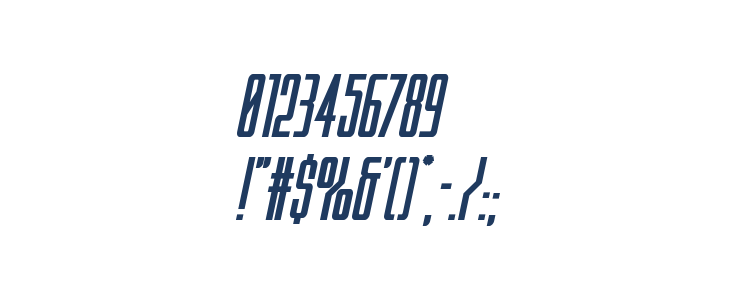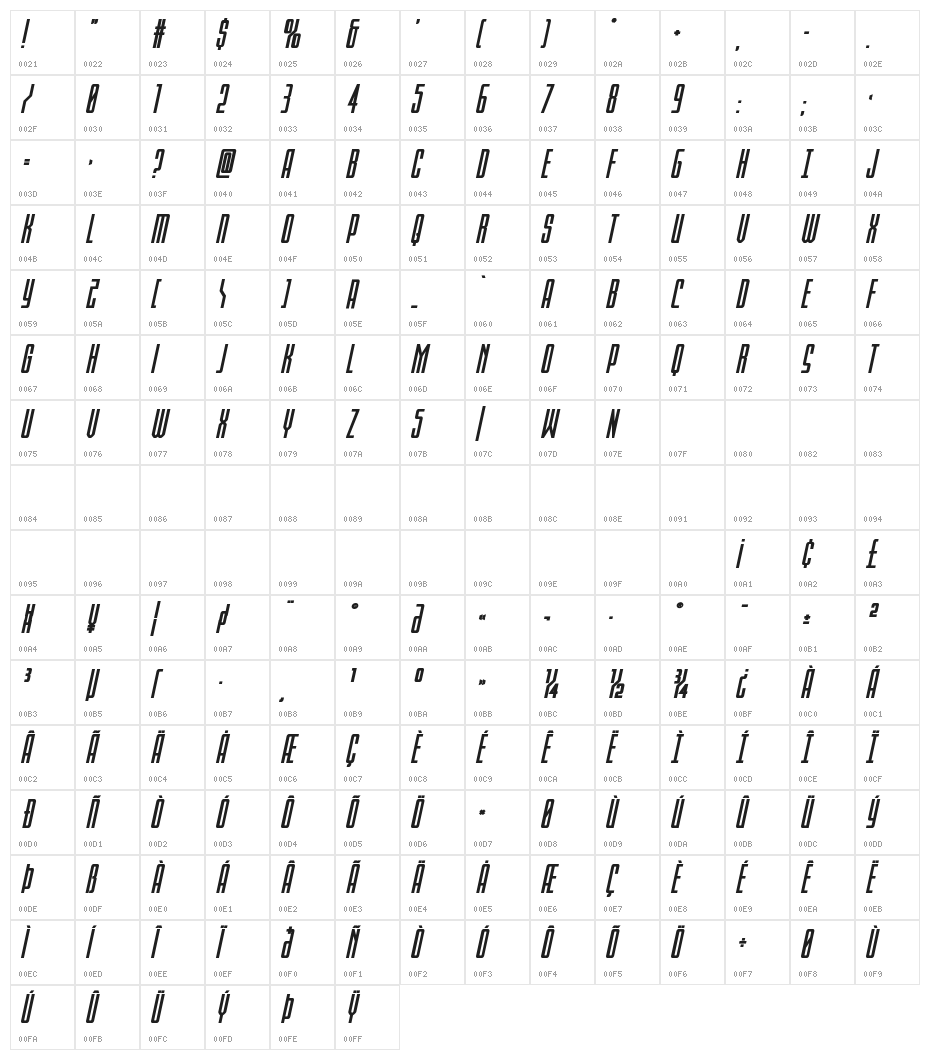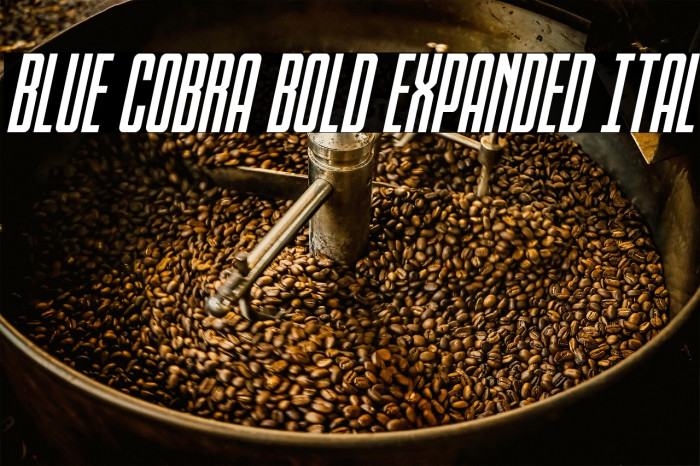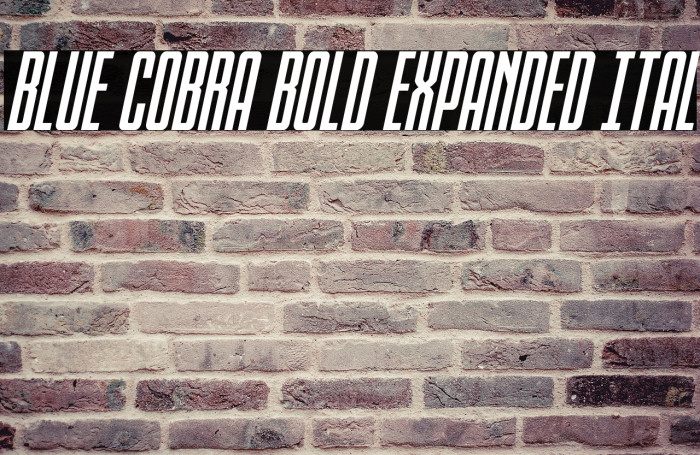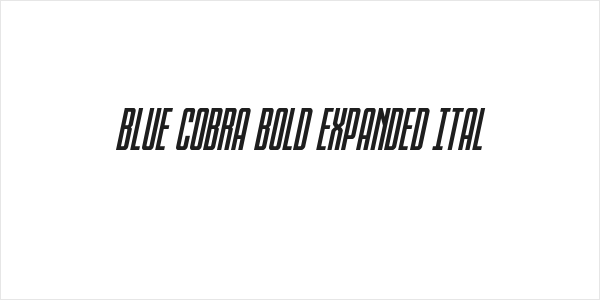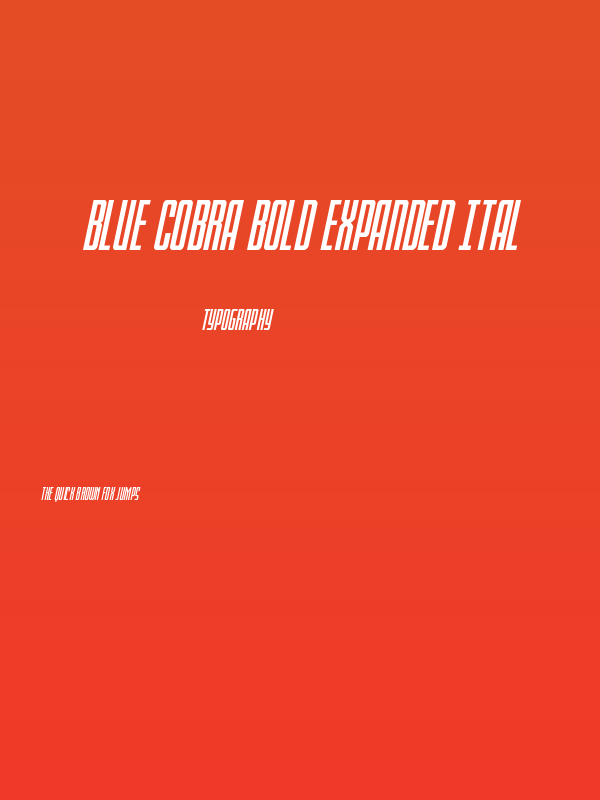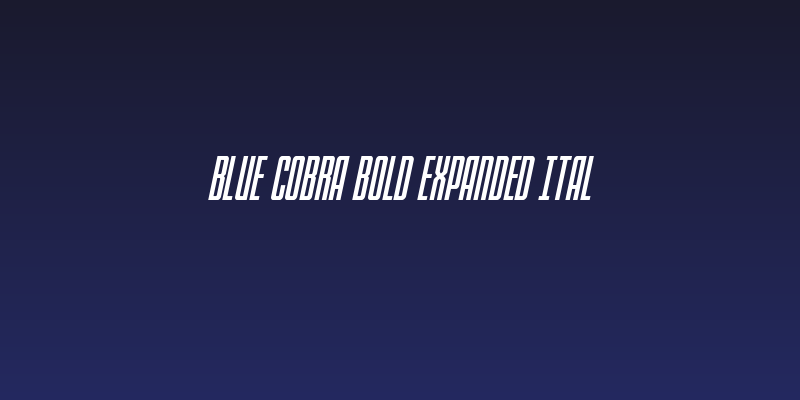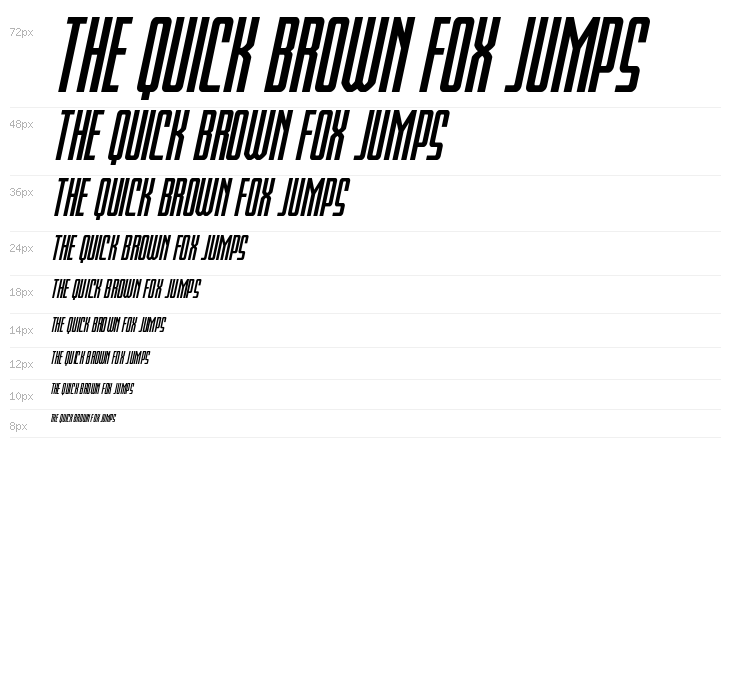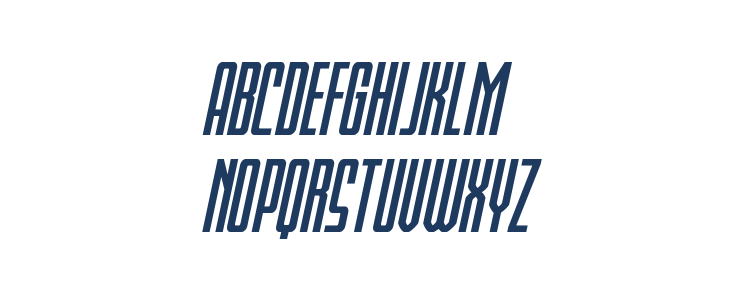
Blue Cobra Bold Expanded Ital Font
Blue Cobra Bold Expanded Ital Description
This font features a bold and expanded style with a distinct italic slant, giving it a dynamic and energetic appearance. The characters are tall and narrow, with sharp angles and clean lines that create a modern and assertive look. The uppercase letters are particularly striking, with a strong presence that commands attention. The numbers and special characters maintain the same bold and italicized characteristics, ensuring consistency throughout the typeface. This font is well-suited for projects that require a bold statement, such as headlines, posters, or branding materials.